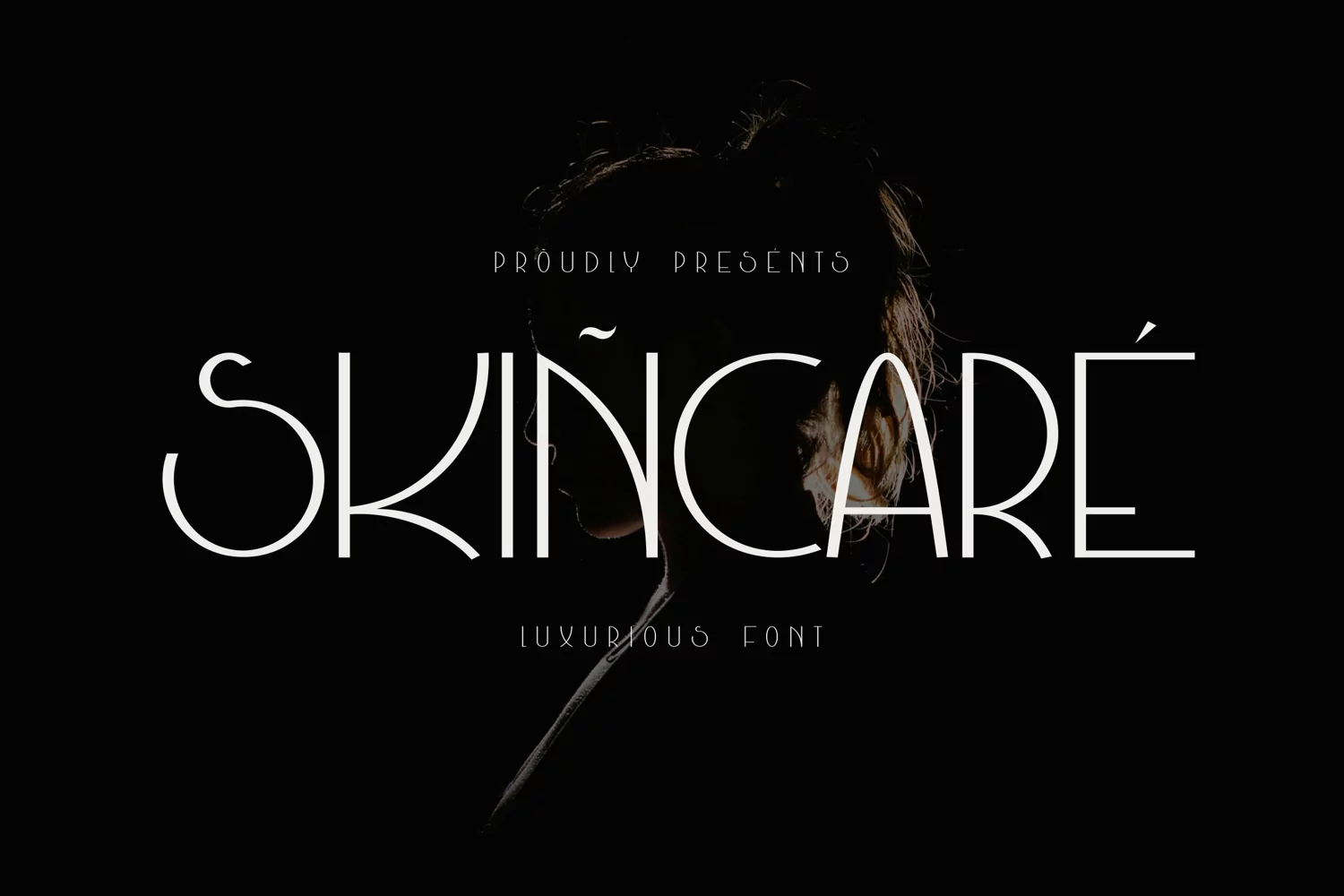
Created By Monoletter
Skincare Monoletter
is a beauty font related to girls,
soft, beautiful, attractive, comfortable fonts, understanding about women today or the past. a font full of gentle charm that is special for women.
you will find a feeling of luxury and appreciation by using this font